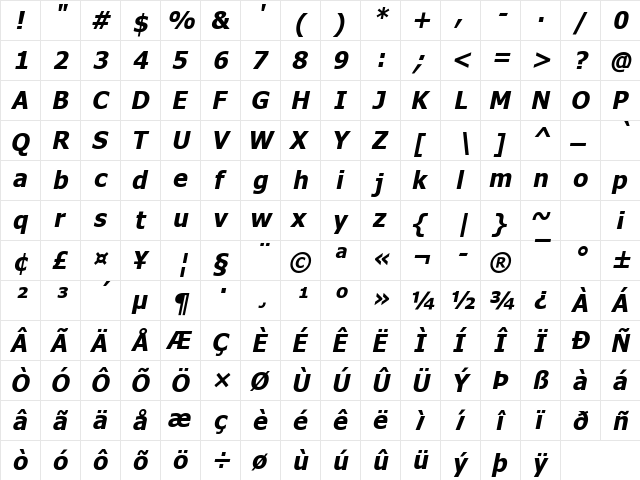
Tahoma Bold Faux Italic Font Preview
| Foundry | Microsoft Corp. |
| Designer | Matthew Carter |
Design Context for Tahoma Typeface
Tahoma takes a measured approach to typography — its balanced proportions and neutral character make it a reliable workhorse for both digital and print work. The dynamic lean of this cut emphasises speed and emphasis in any layout. The heavy weight commands attention and anchors typographic hierarchies.
Pro Tip: Try Tahoma for annotation and caption copy alongside an upright companion — the contrast in angle creates a dynamic but ordered typographic system.